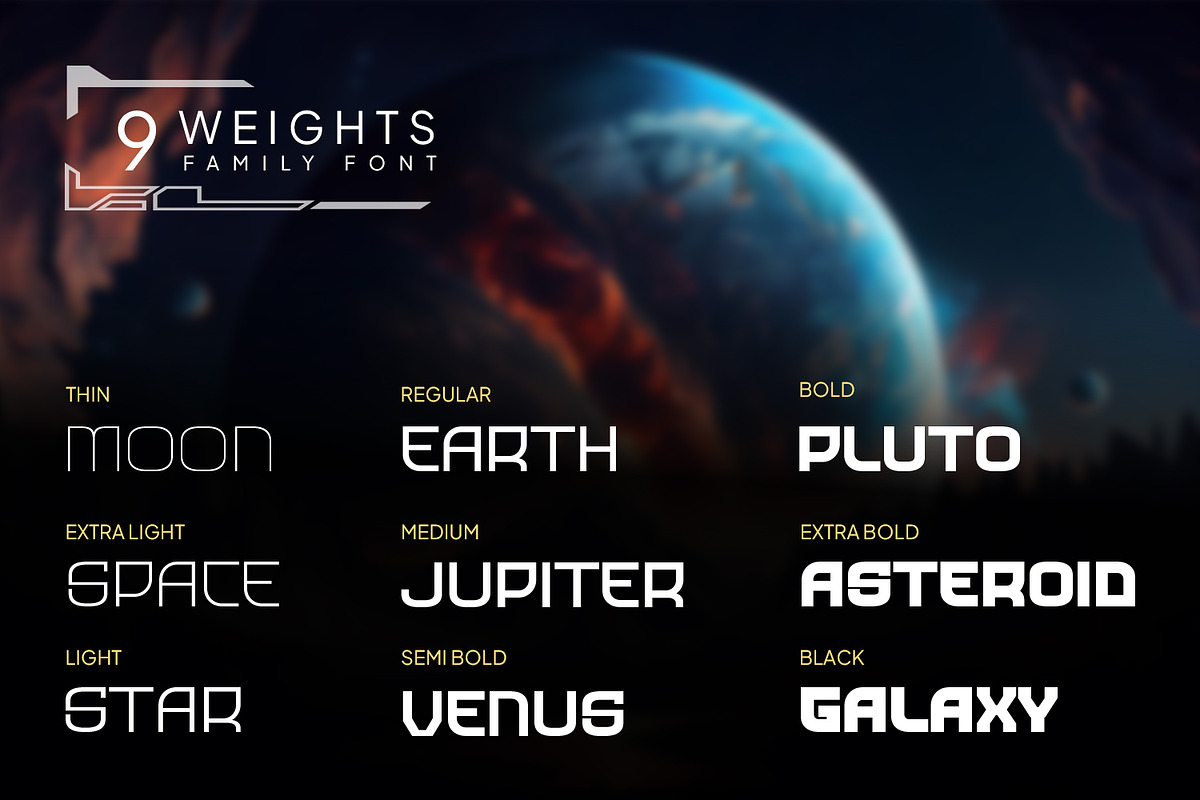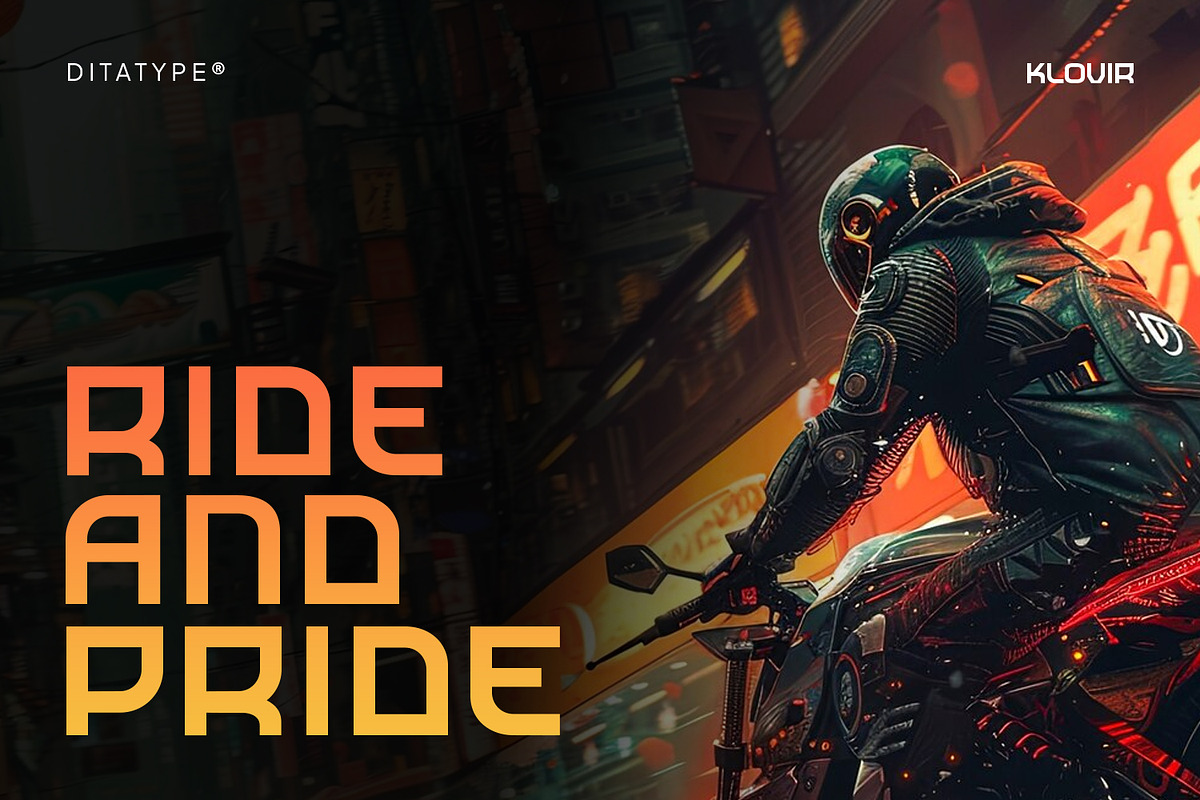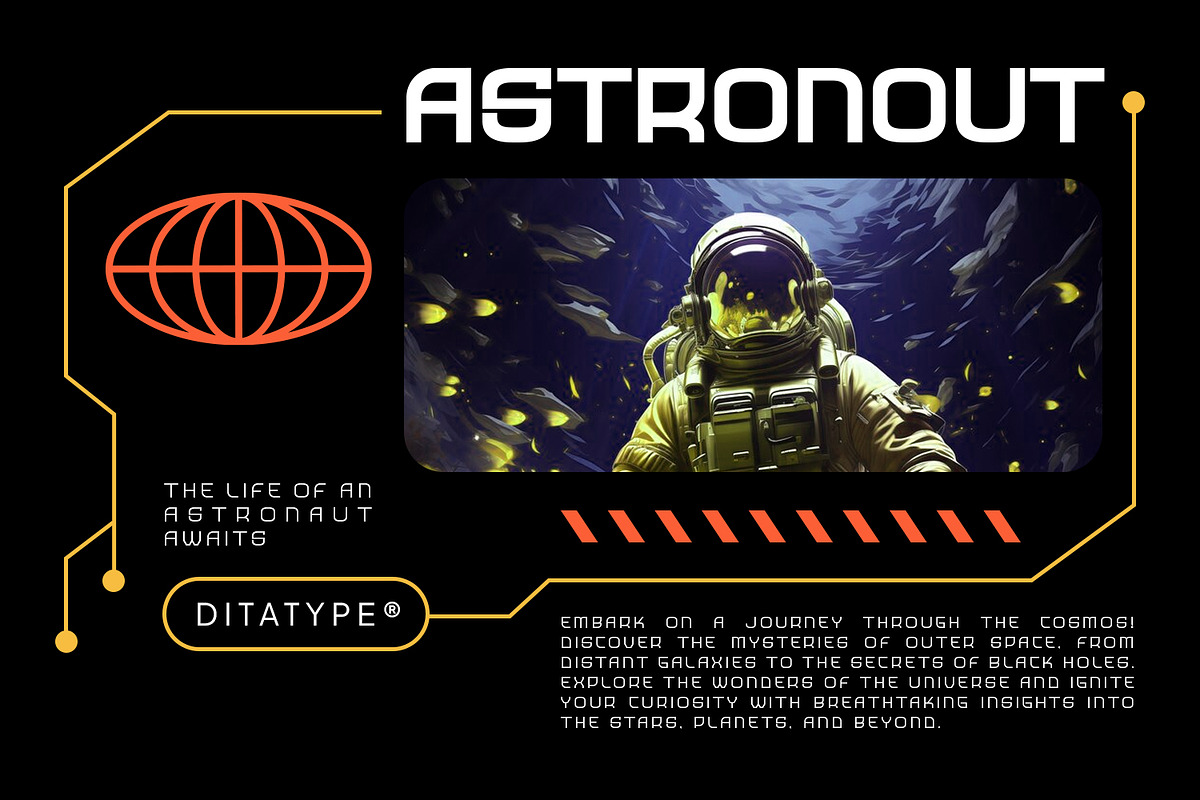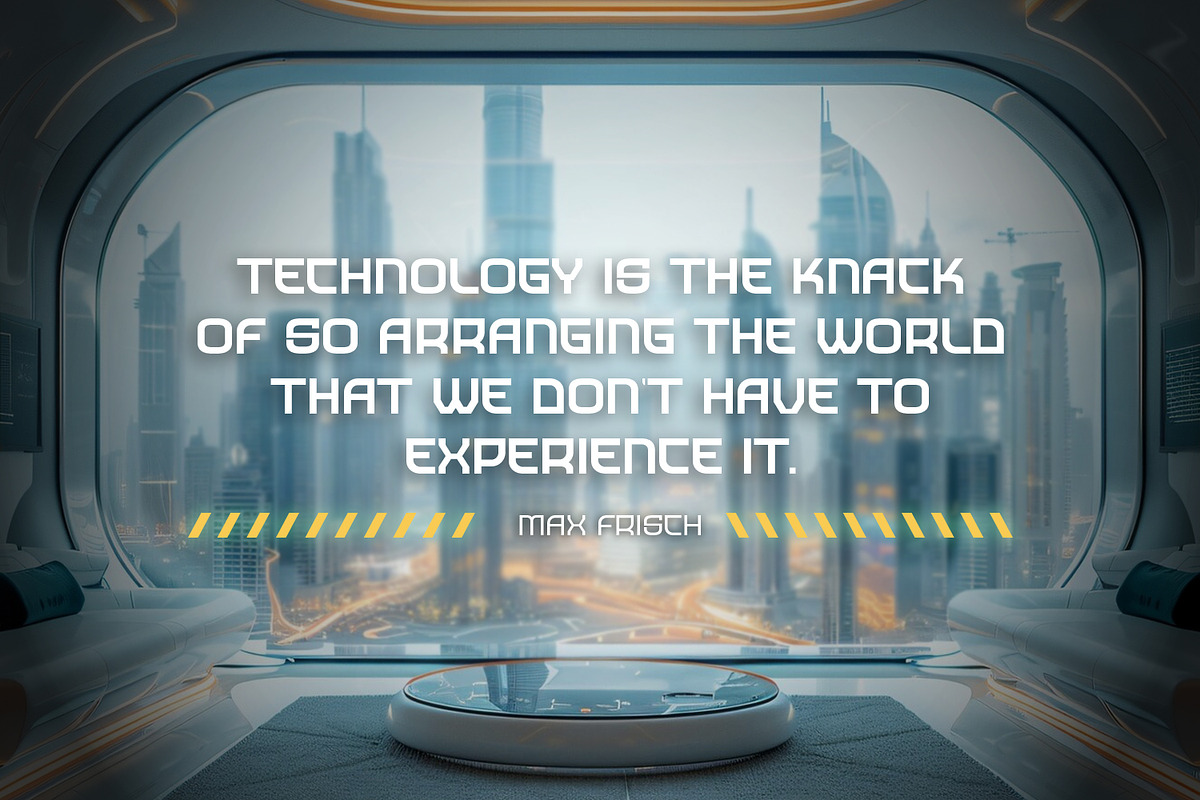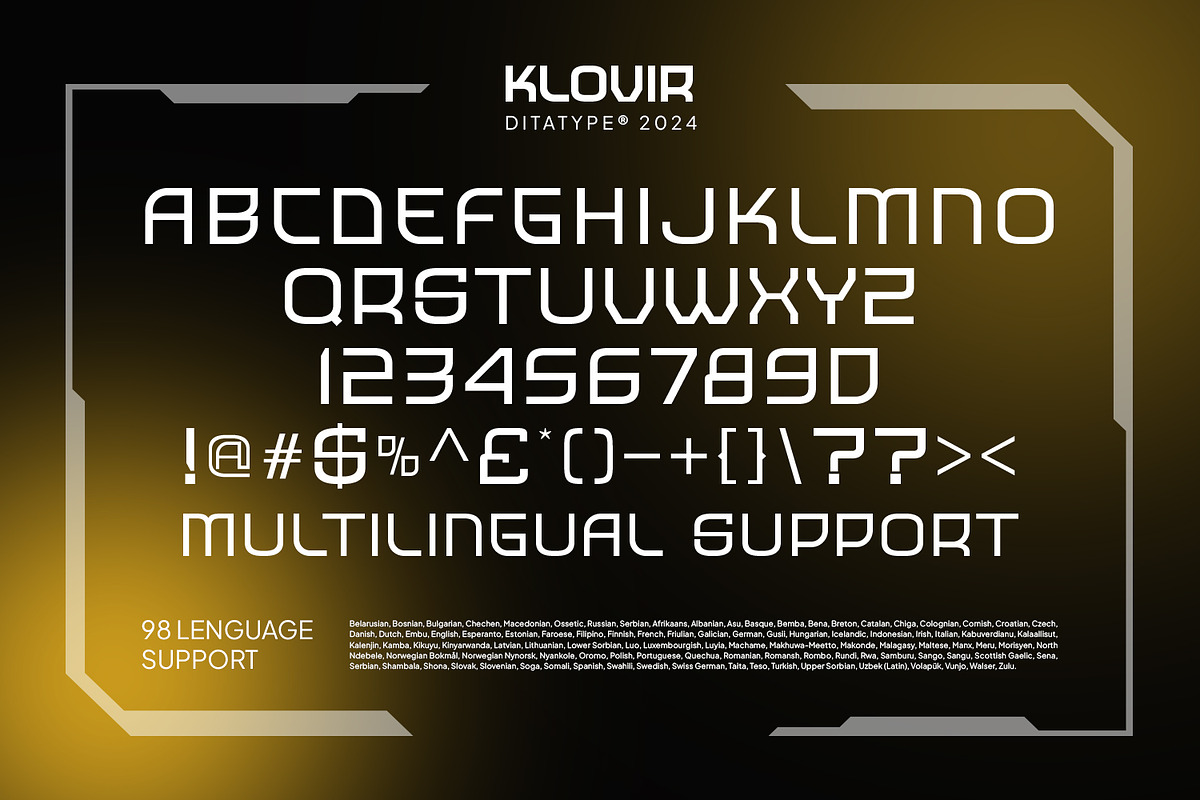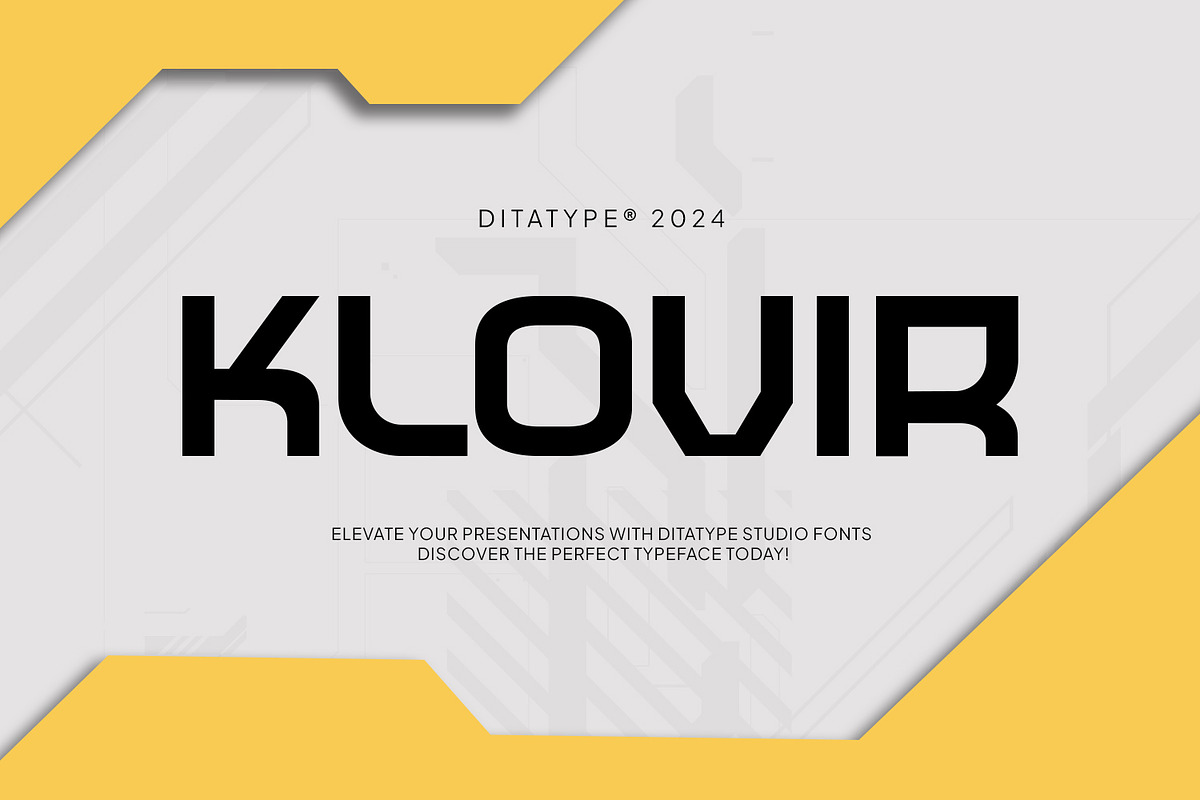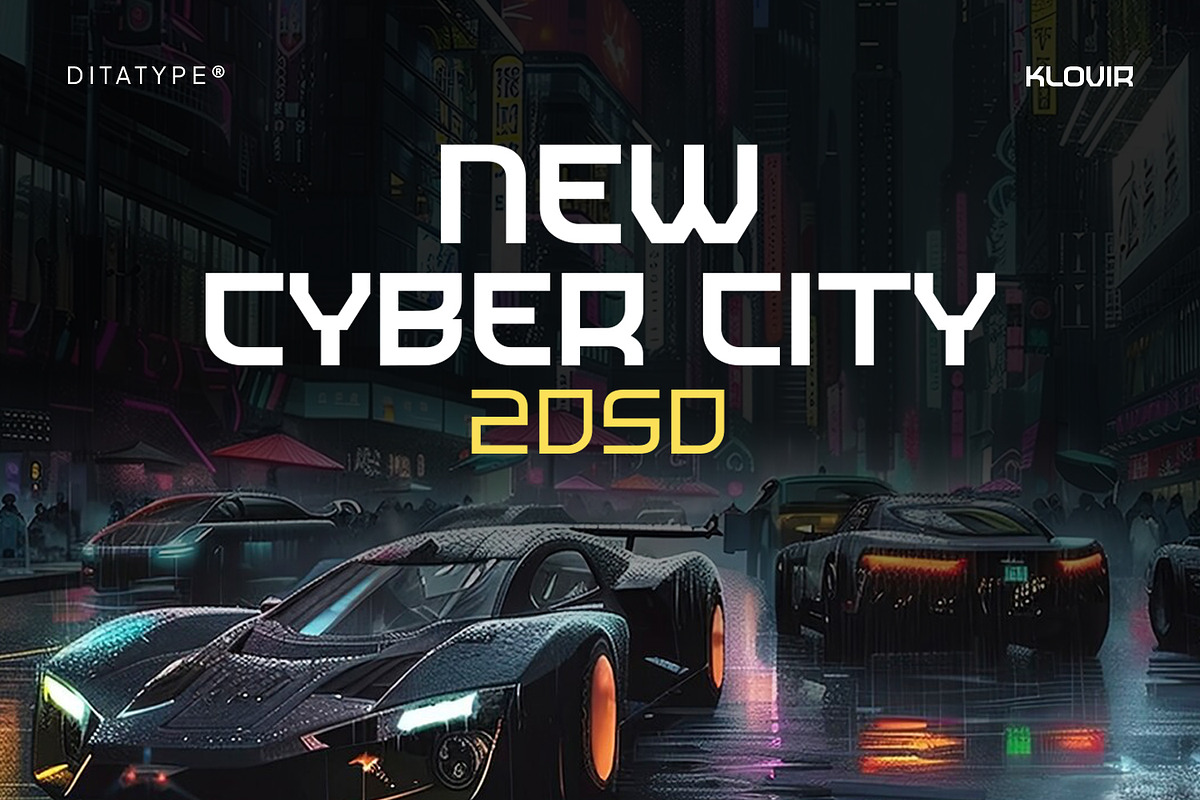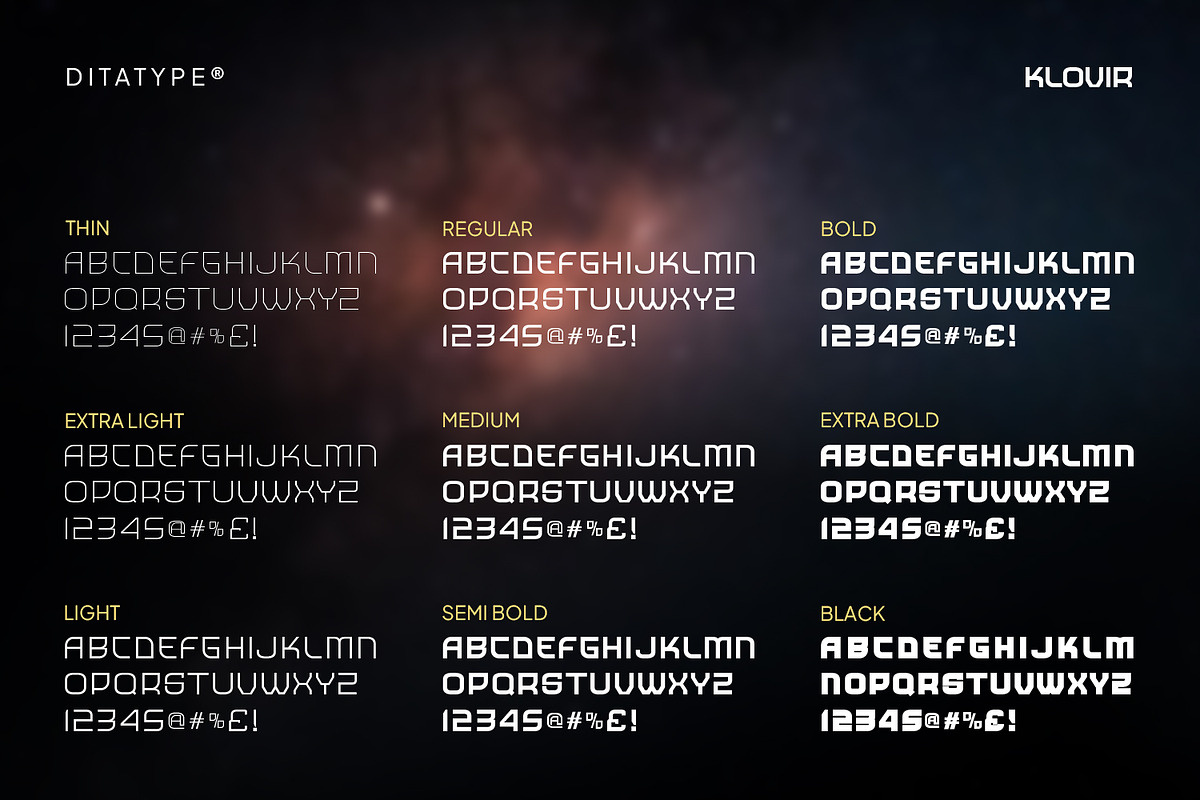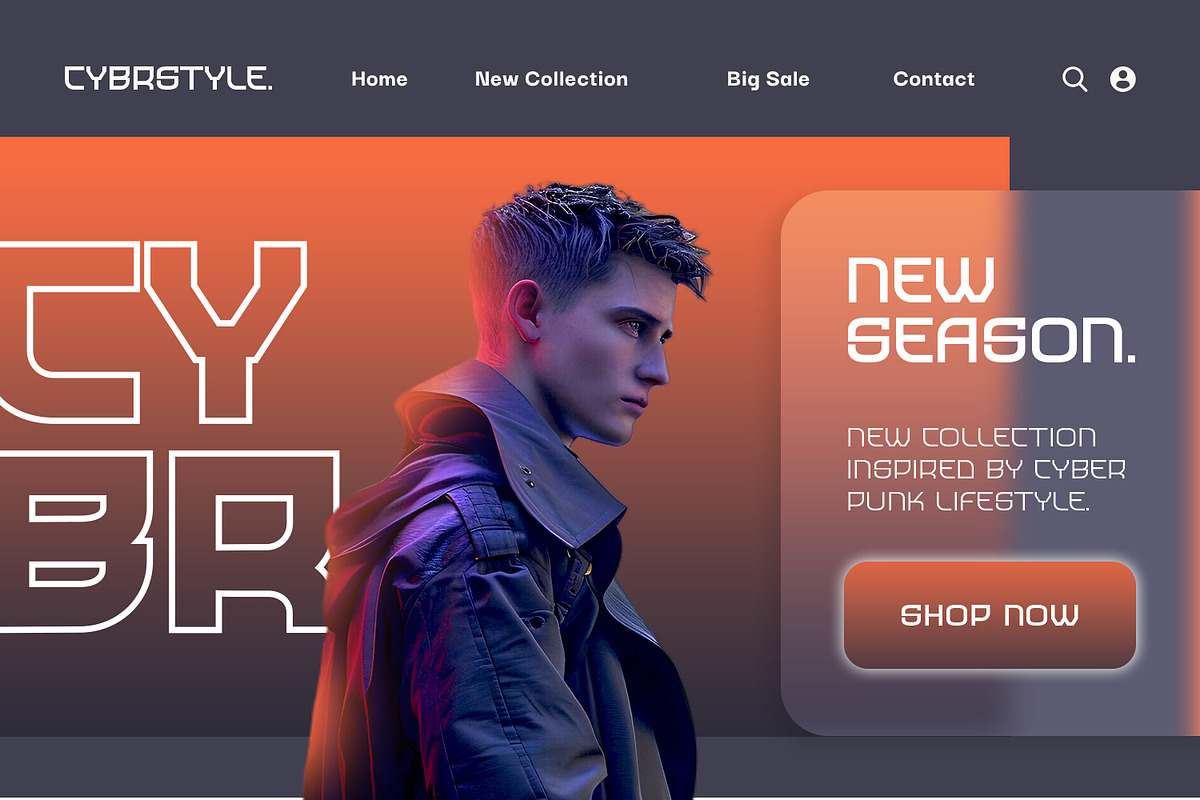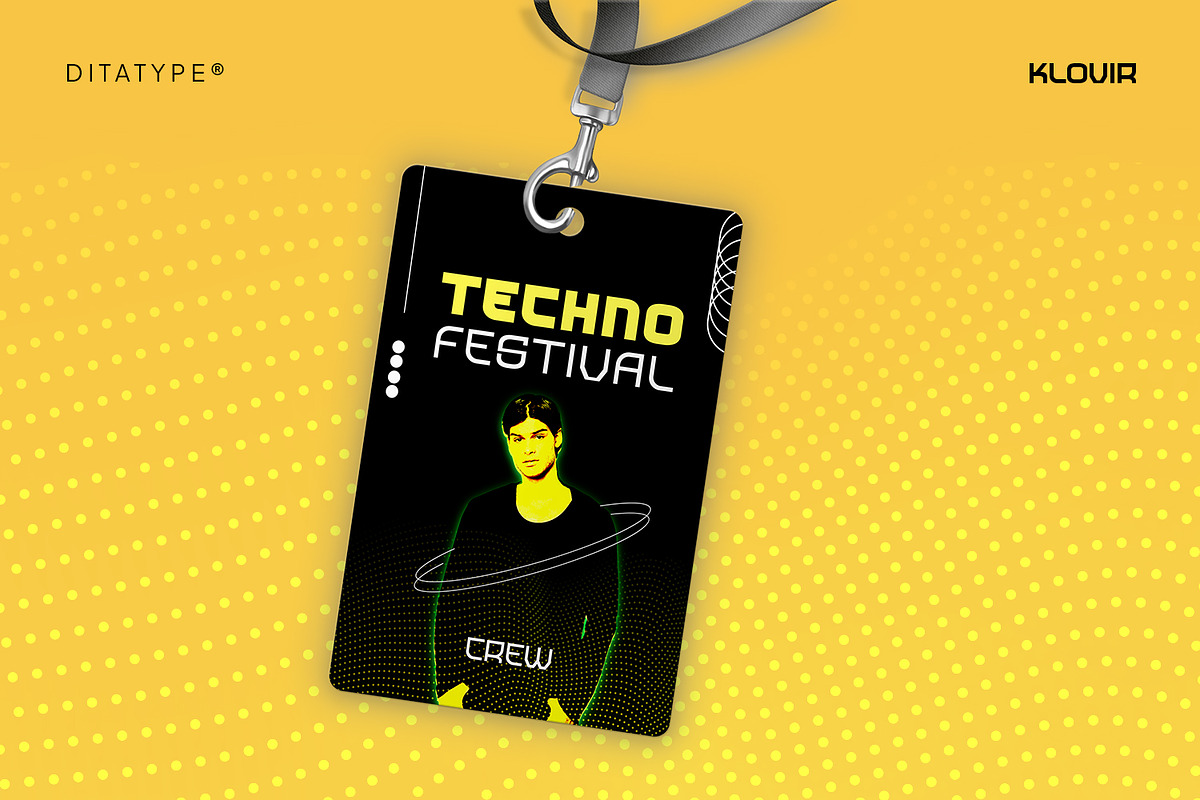
Klovir
Introducing Klovir – a versatile display font with a sleek, futuristic style. Designed in all caps and available in 9 different weights, Klovir offers a wide range of options to suit any creative project. Whether you need a light touch or a bold impact, Klovir's modern, high-tech aesthetic adapts effortlessly. Klovir combines style and flexibility to help you create a striking visual presence. In addition, enjoy the features here.
Klovir fits in logos, posters, flyers, branding materials, print media, editorial layouts, and many more designs. Find out more ways to use this font by taking a look at the font preview.